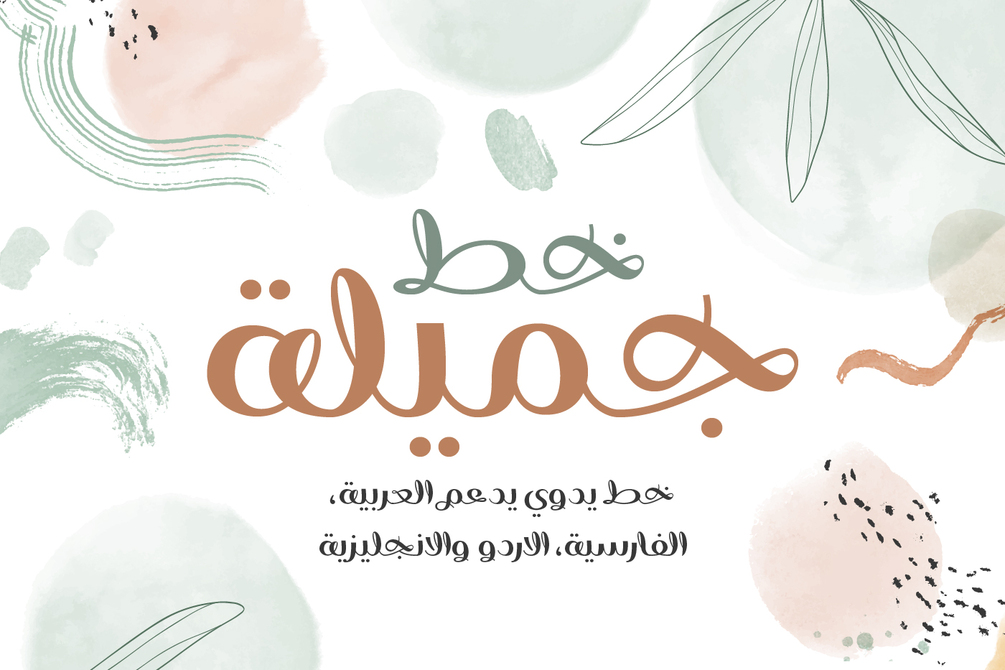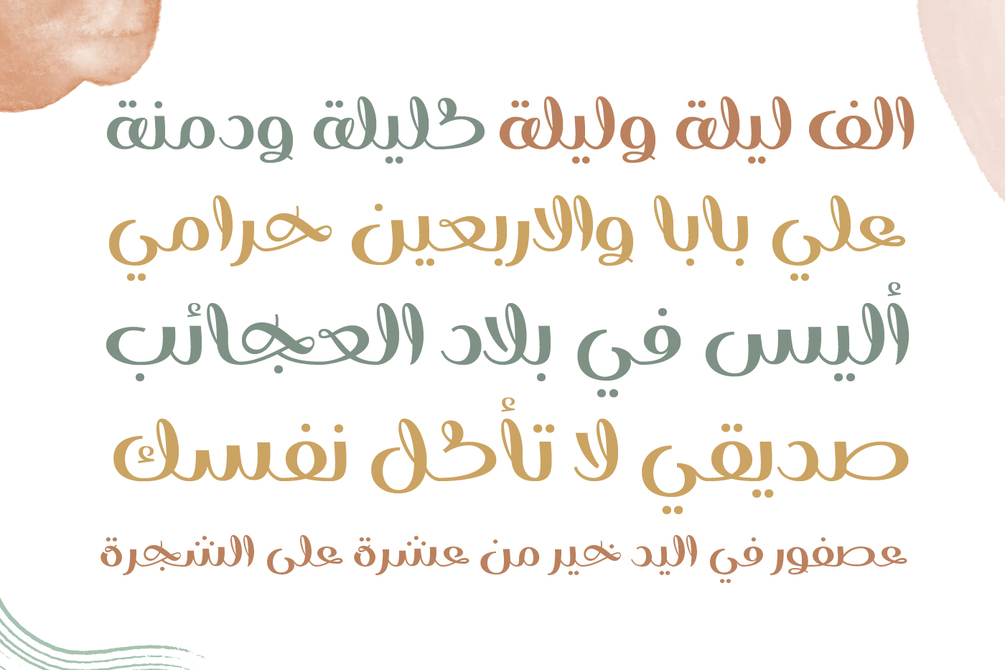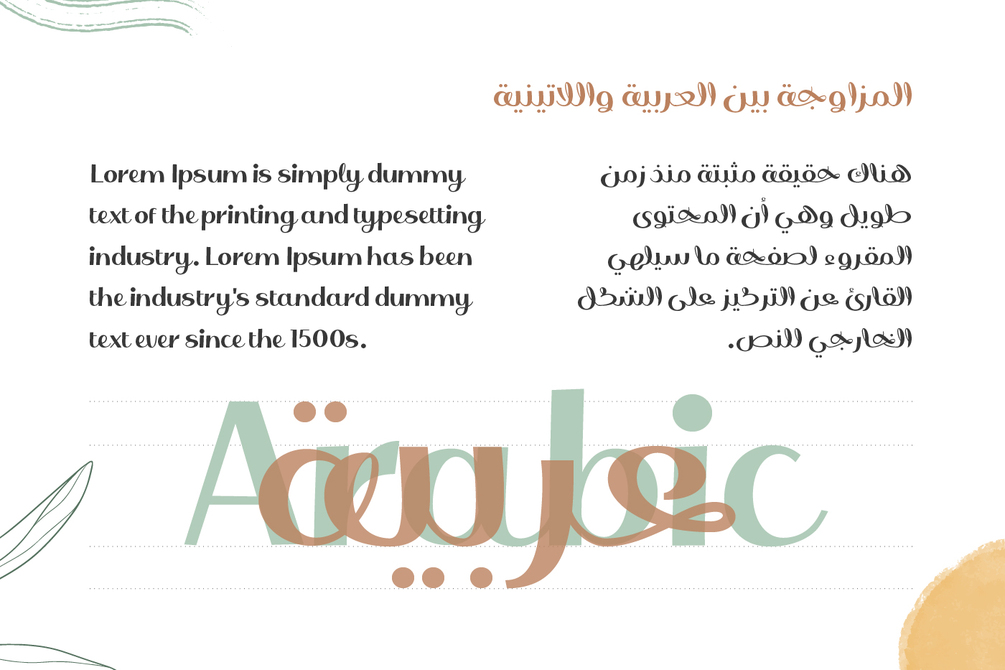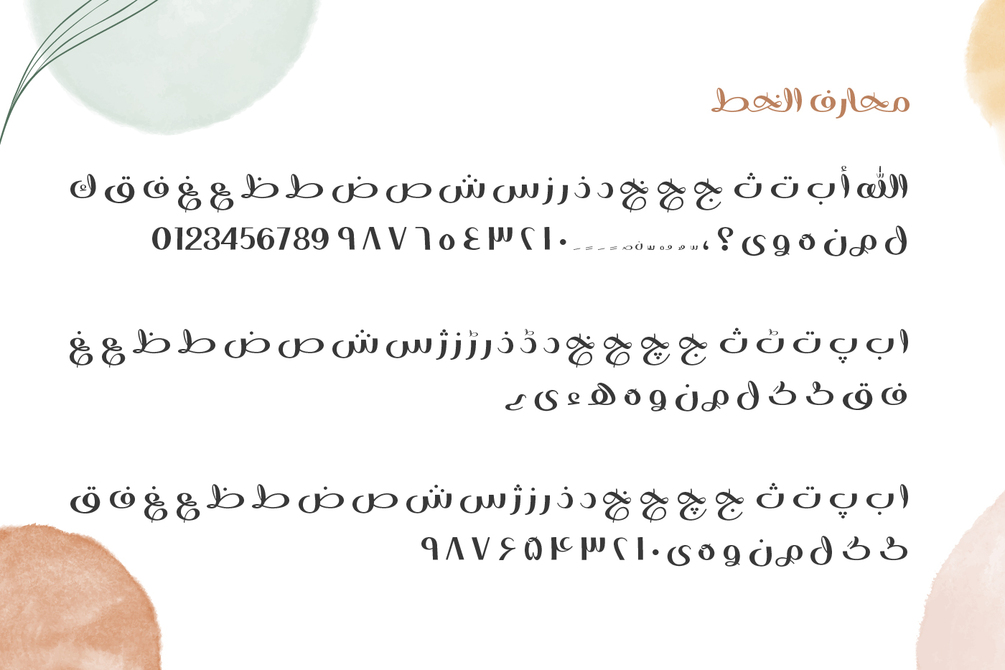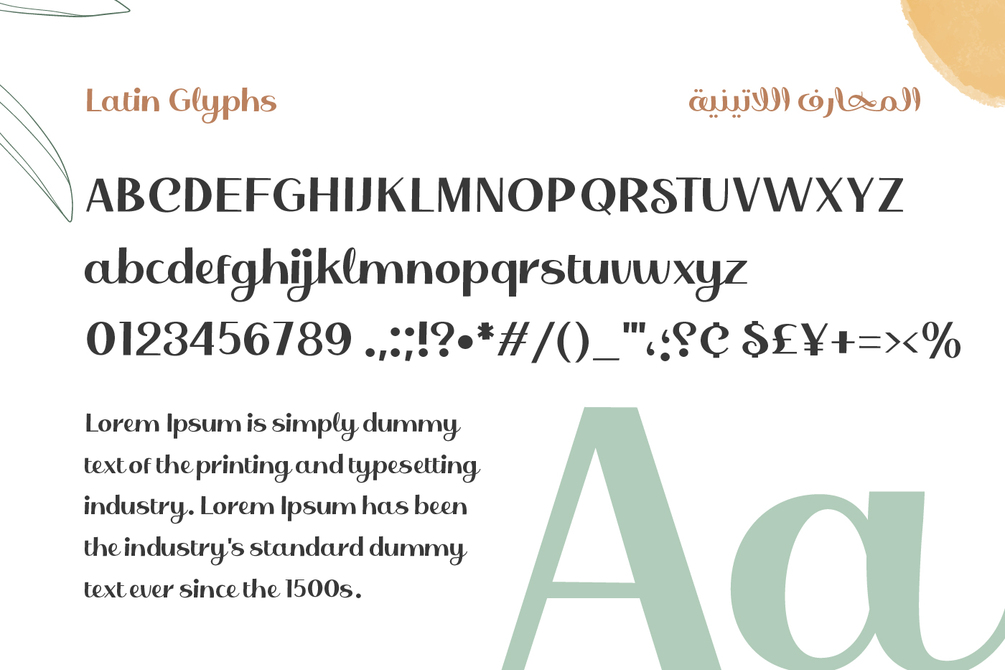
YR Gamila Arabic Font
YR Gamila is a stunning handwritten font that exudes both class and modernity. It boasts a comprehensive set of basic glyphs, encompassing uppercase and lowercase letters, numbers, and symbols.
YR Gamila font is perfect for elevating a variety of design projects, such as logos, cards, prints, social media graphics, menus, books, wedding invitations, and much more. Its sophisticated and contemporary aesthetic lends a touch of elegance to any creative endeavor.
The font comes in 1 weight with support for Arabic script in 4 languages: Arabic, Farsi, Urdu and basic English.
It also supports 3 numeral systems: Hindi, Arabic, and Farsi.